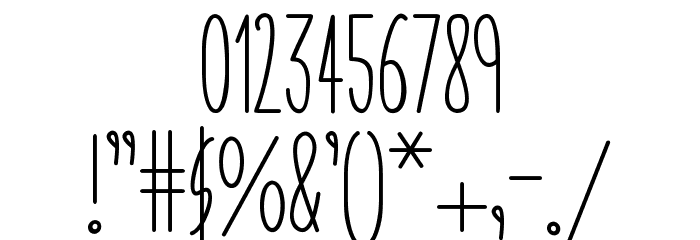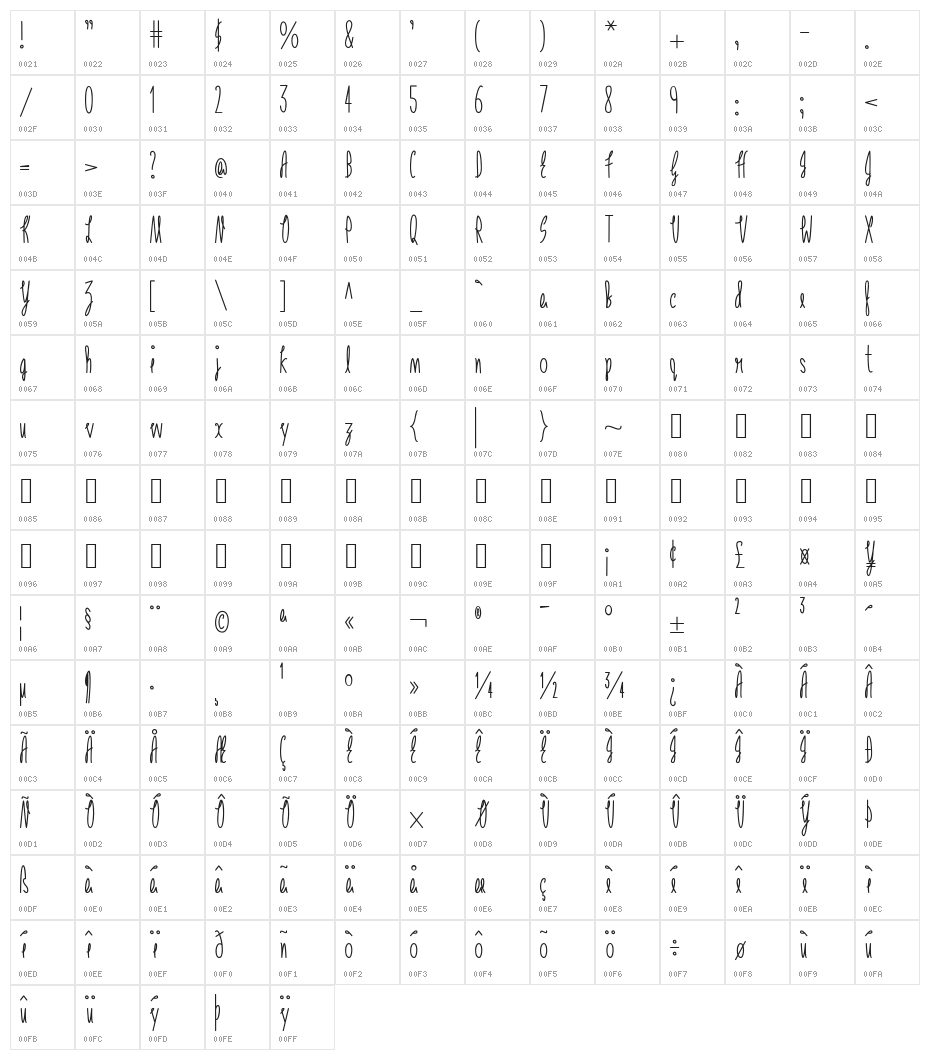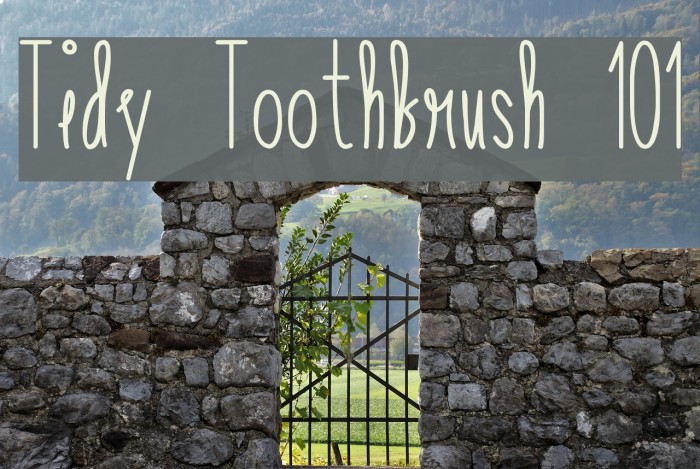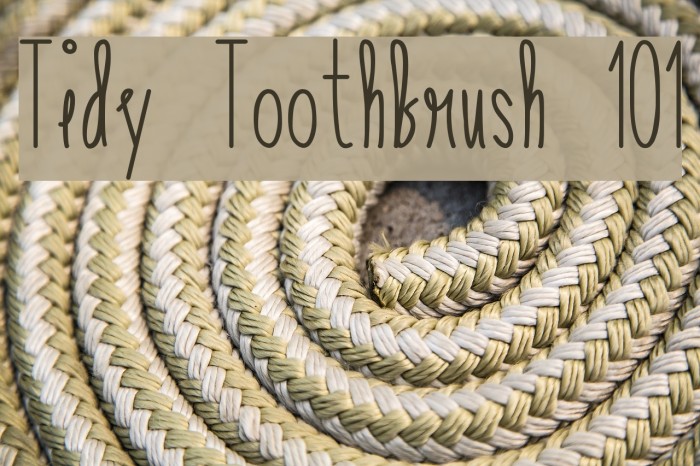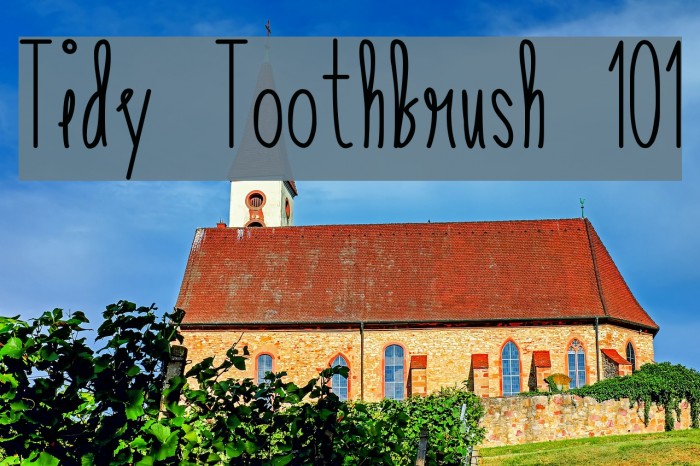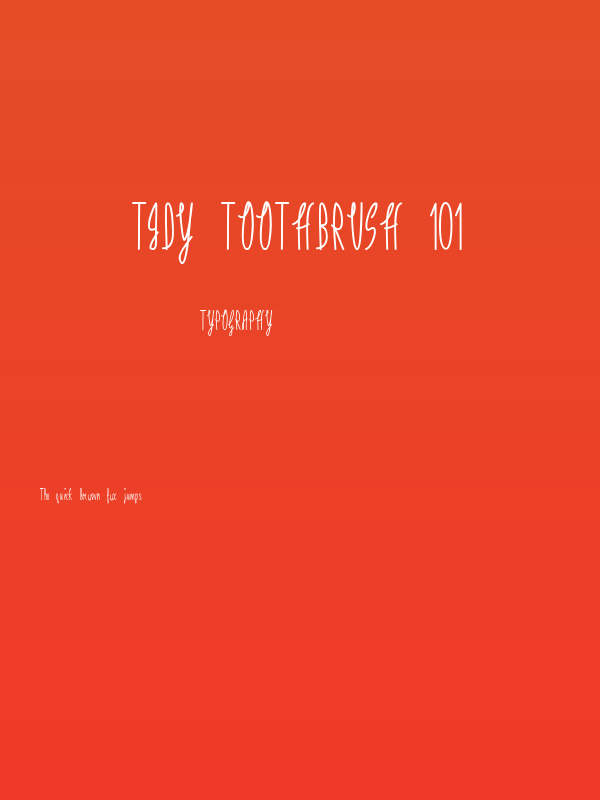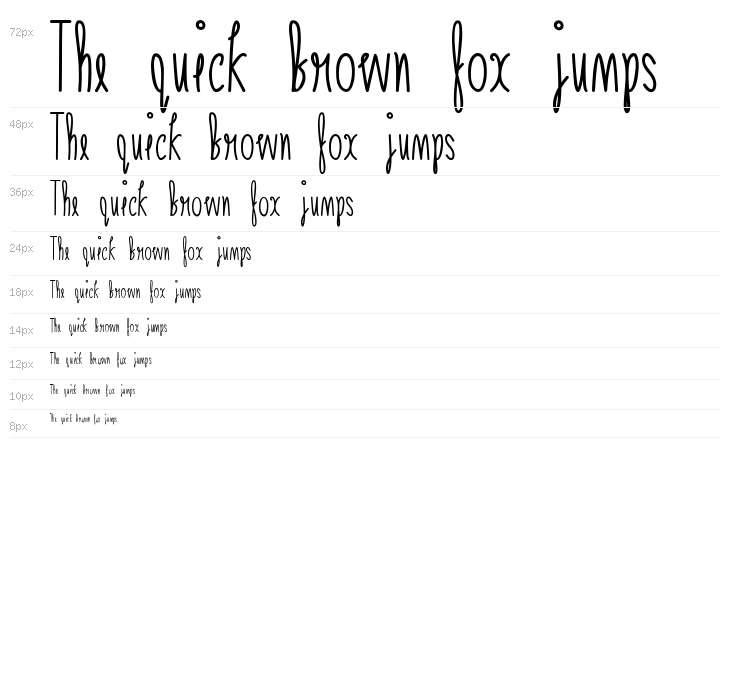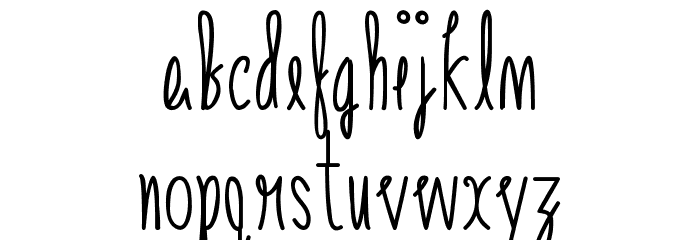
Tidy Toothbrush 101 Font
Tidy Toothbrush 101 Description
This font features a playful and whimsical handwritten style, characterized by its tall, narrow letters and slightly irregular strokes. The uppercase letters are elongated with a distinct flair, while the lowercase letters maintain a consistent flow, adding to its casual and friendly appearance. The numerals and special characters follow the same playful aesthetic, ensuring a cohesive look across all text. This font's unique style makes it stand out, offering a sense of creativity and individuality.
| Proposed Projects | Ideal for creative projects such as greeting cards, invitations, children's books, and playful branding materials. |